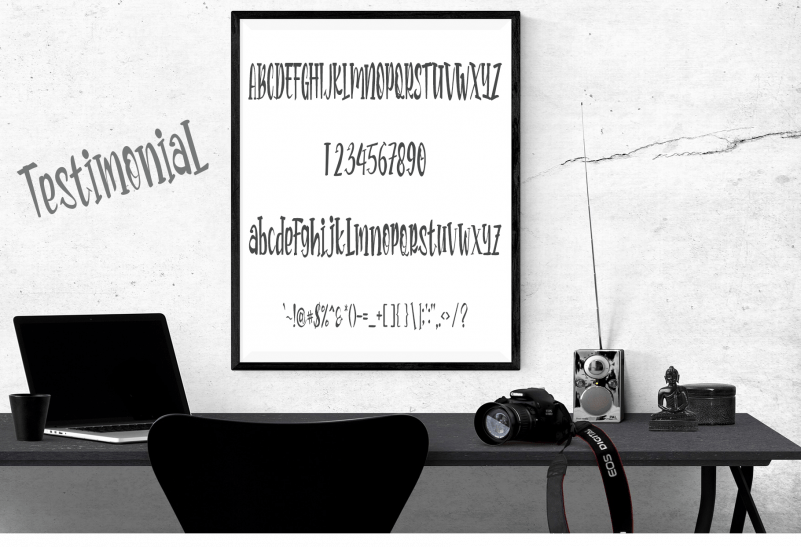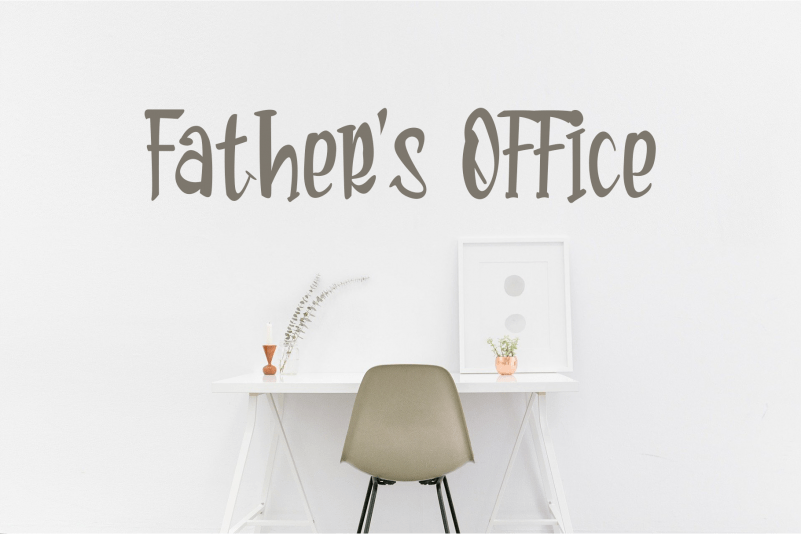
Kitchen Home Font
Kitchen Home Display Font
This is a cool and quirky looking display font. This original look will appeal to a wide range of crafty ideas, from letterheads and titles, to stationery.